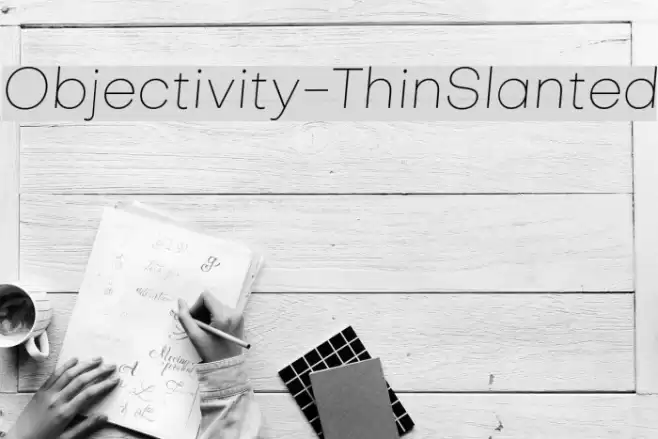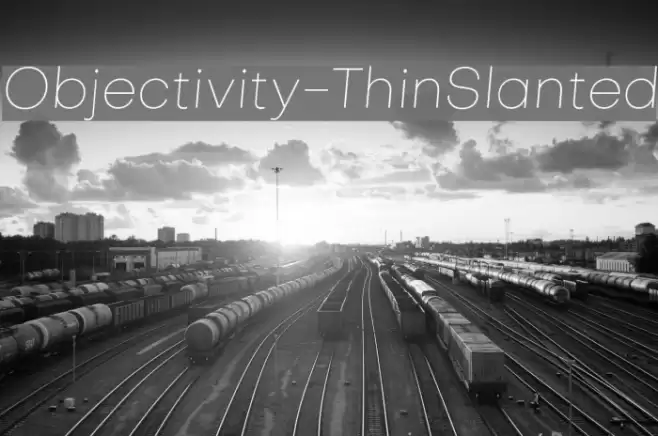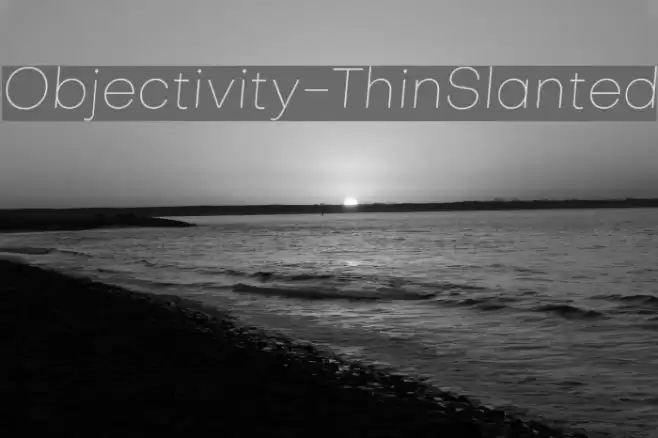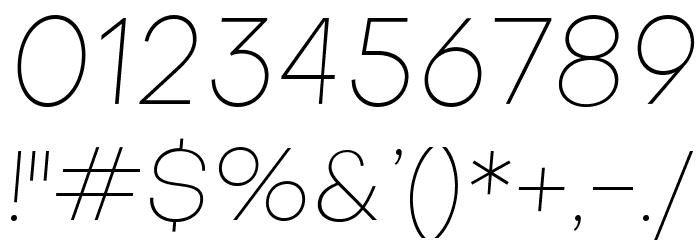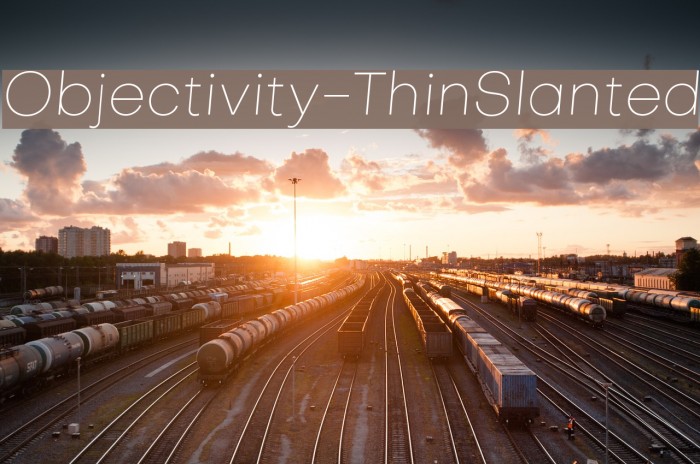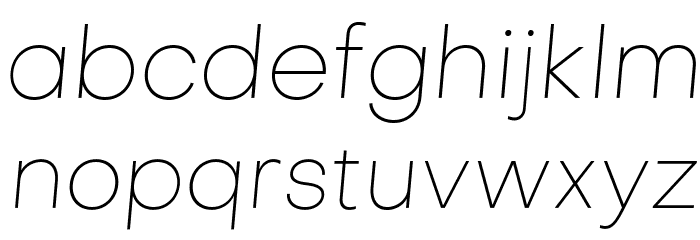
Objectivity-ThinSlanted Font
Objectivity-ThinSlanted Description
This font features a sleek and modern design with a thin, slanted style that gives it a dynamic and contemporary look. The characters are elegantly crafted with a consistent stroke width, providing a clean and minimalist appearance. The uppercase and lowercase letters maintain a uniform slant, enhancing the overall fluidity of the typeface. The numerals and special characters are designed to complement the alphabet, ensuring readability and aesthetic harmony. This font's simplicity and elegance make it suitable for a wide range of design applications.
A sleek, thin, and slanted modern font with a minimalist design.
- Proposed Projects: Ideal for modern branding, editorial design, digital interfaces, and minimalist posters.
- Category: Sans-Serif
- Weight: Light